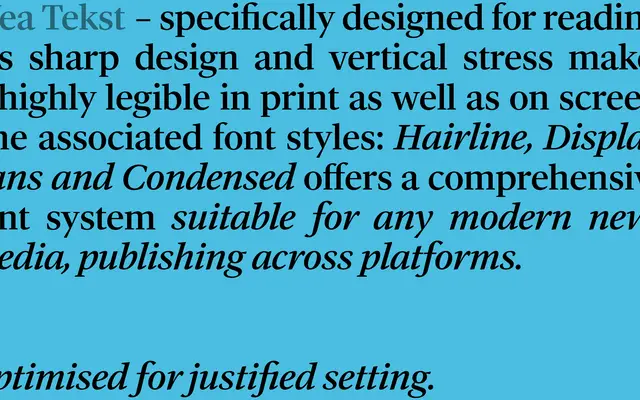
WEA Text
A2-Type · 2021
WEA Text specimen from A2-Type
The text serif component of a complete editorial type system commissioned by Danish weekly broadsheet Weekendavisen, winner of World's Best Designed Newspaper in 2021 and 2026.
Designed for Weekendavisen, a Danish broadsheet tracing its lineage to Berlingske Tidende (1749), WEA Text sits within a four-part system alongside Display, Hairline and Sans subfamilies. Fourteen styles span Light to Black, each with a matching italic, tuned for legibility at small print sizes and on-screen. The broader type system received the Tokyo TDC Award in 2021, and the newspaper redesign was named World's Best Designed Newspaper by SND twice.
A newspaper text serif designed for sustained reading at small sizes, built as part of a larger editorial type system encompassing Display, Hairline and Sans cuts, consistent with a contemporary transitional or humanist text serif approach.